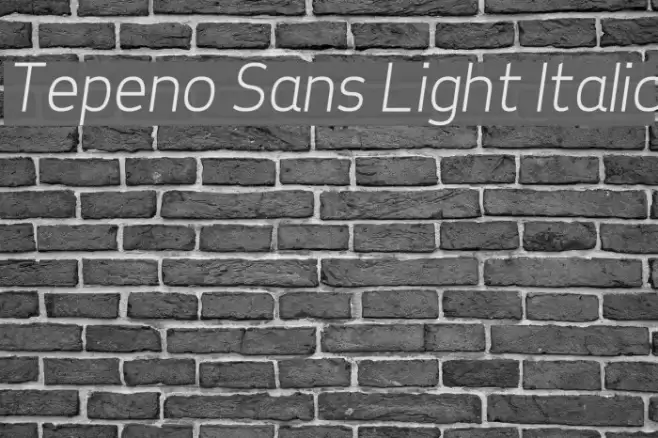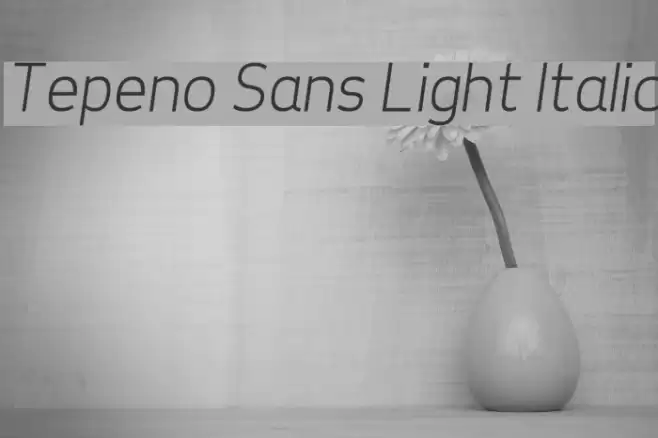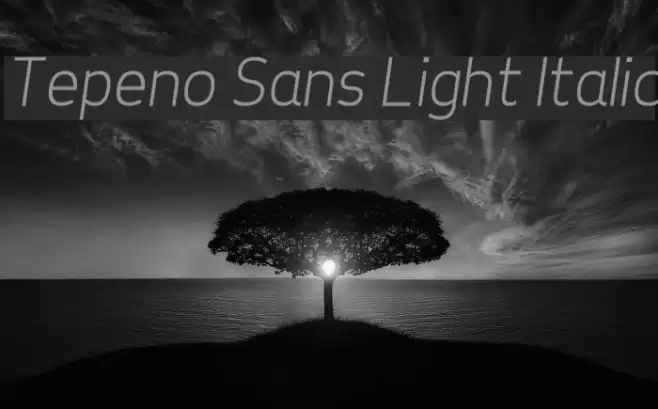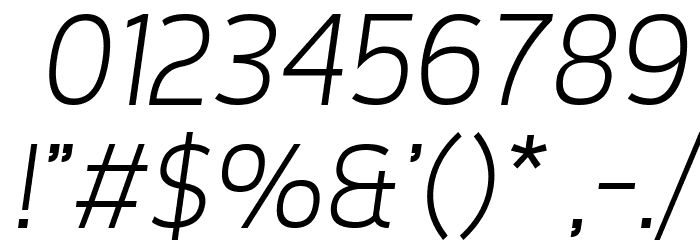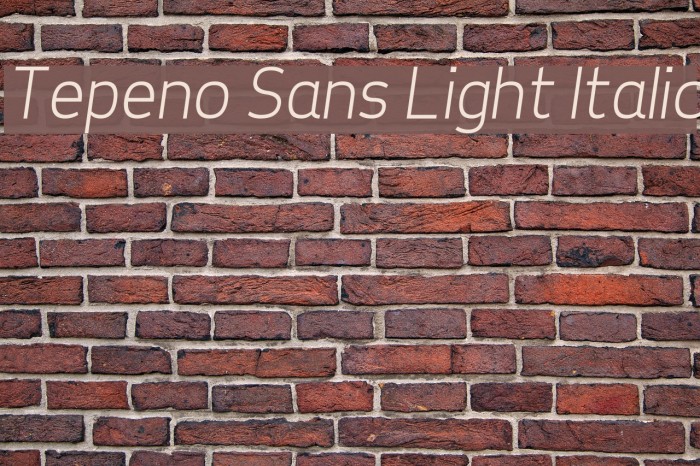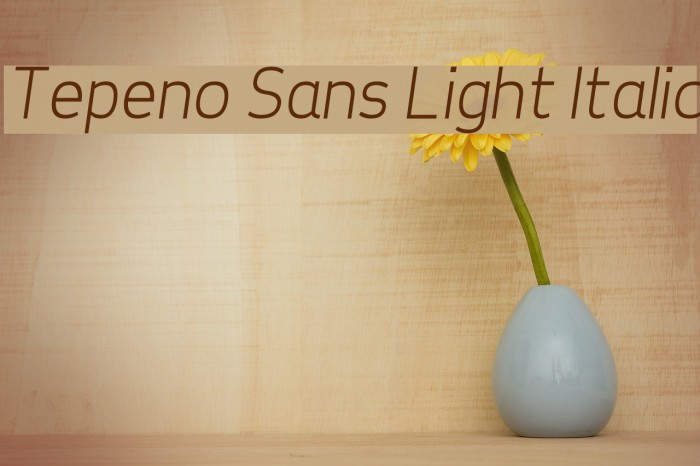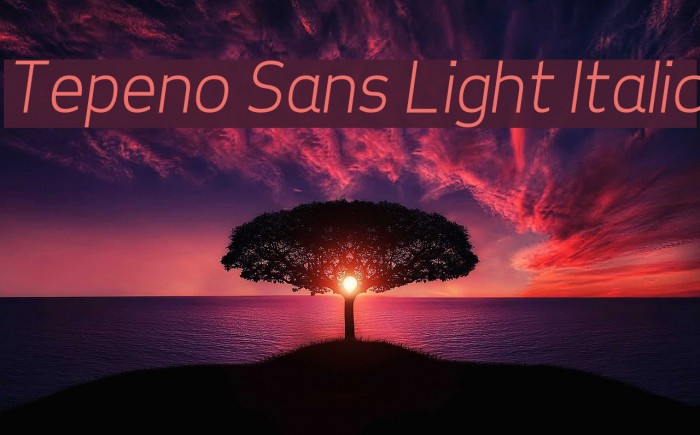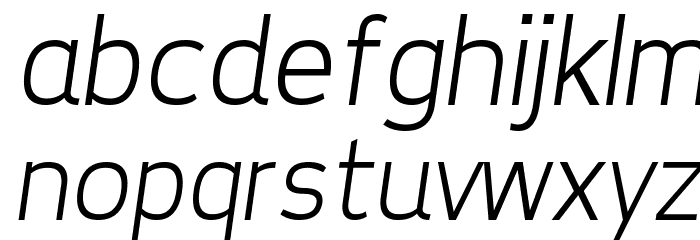
Tepeno Sans Light Italic Font
Tepeno Sans Light Italic Description
This font features a sleek and modern design with a light weight and italic style. The characters are elegantly slanted, providing a sense of motion and fluidity. The sans-serif design ensures a clean and uncluttered appearance, making it versatile for various applications. The letterforms are well-proportioned with a consistent stroke width, contributing to its readability. The spacing between characters is normal, allowing for easy legibility without feeling cramped. This font's contemporary aesthetic makes it suitable for a wide range of design projects.
A sleek, modern sans-serif font with a light, italic style from Uncategorized fonts.
- Proposed Projects: Ideal for modern branding, editorial design, digital interfaces, and advertising.